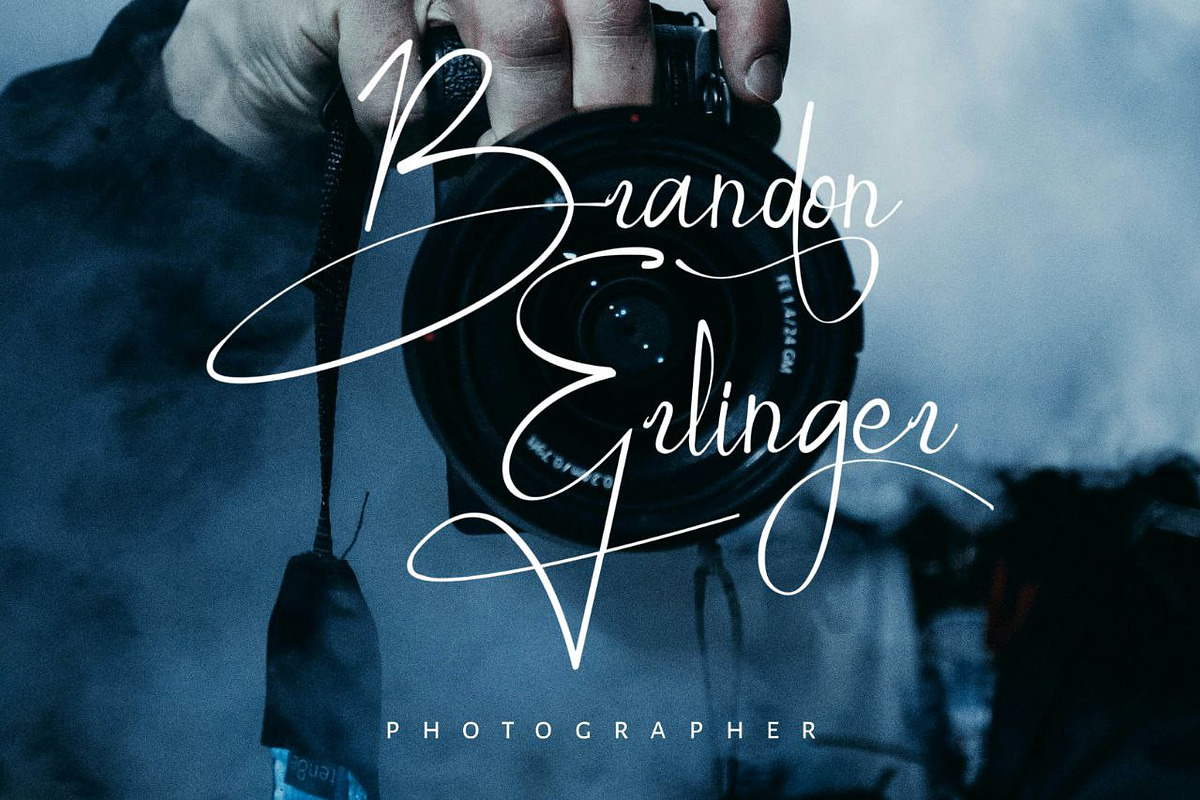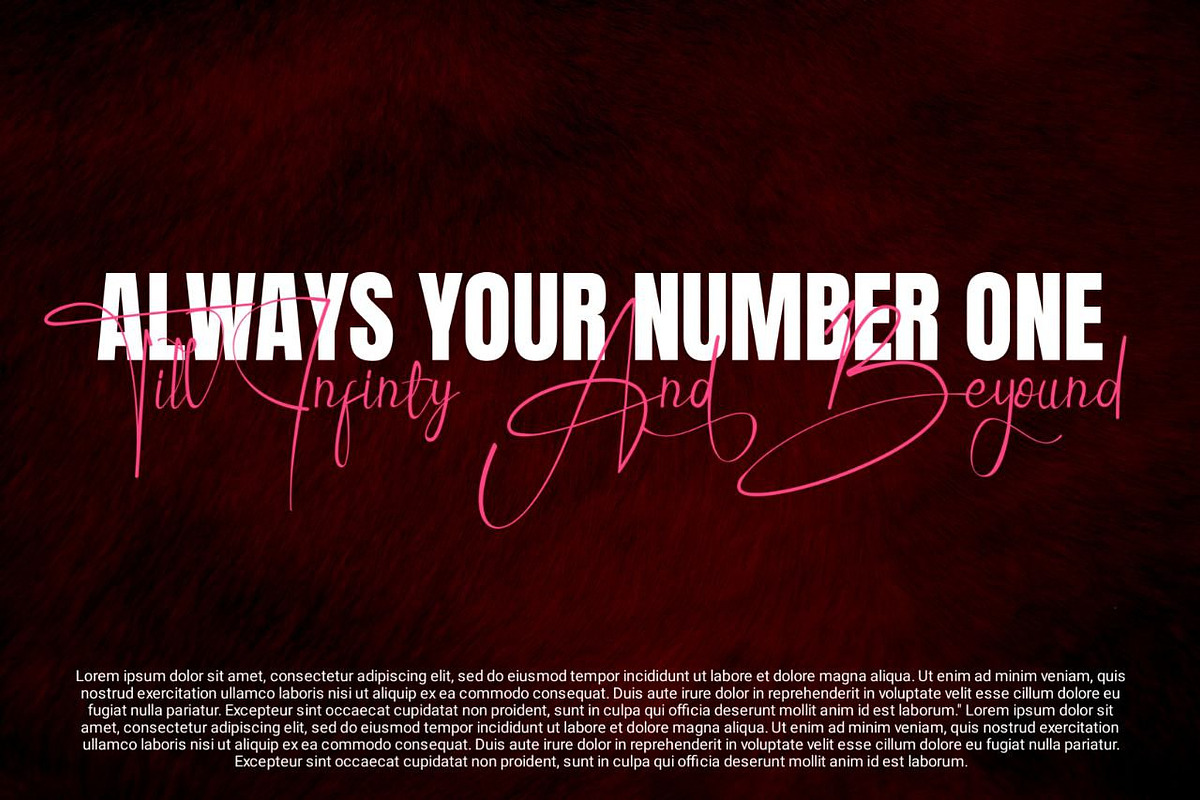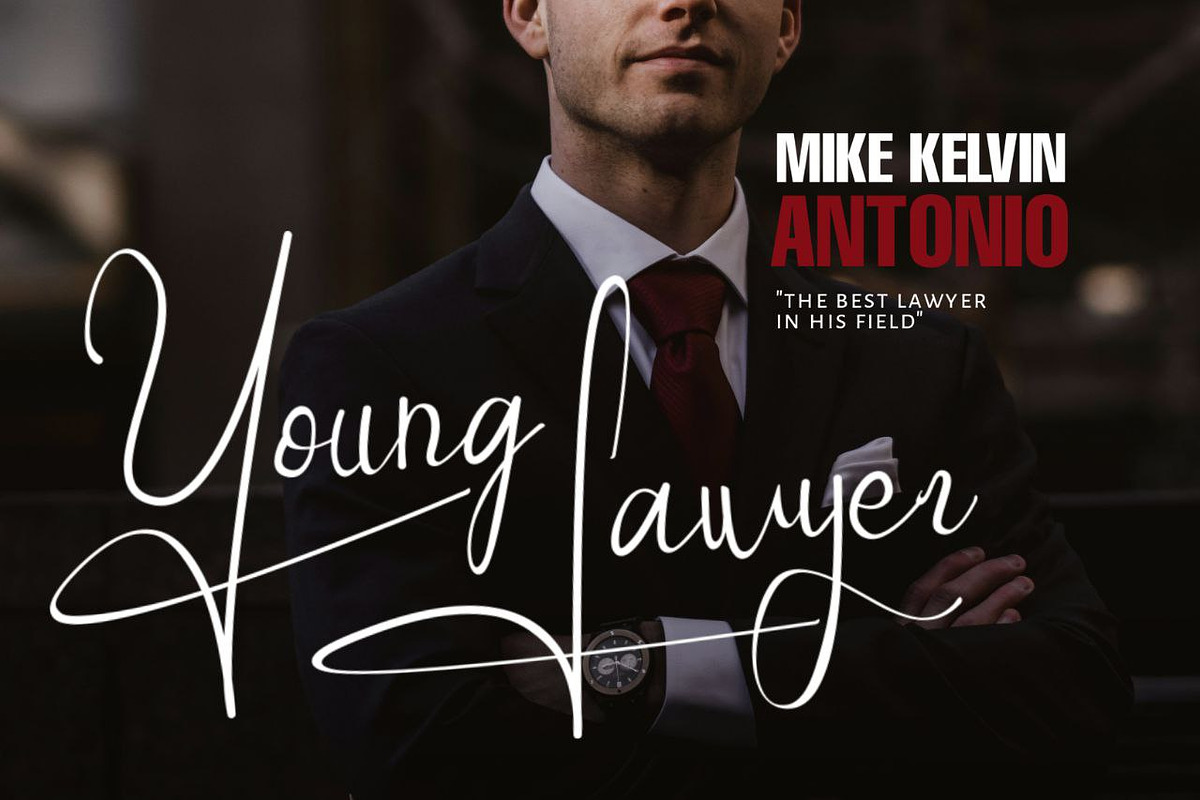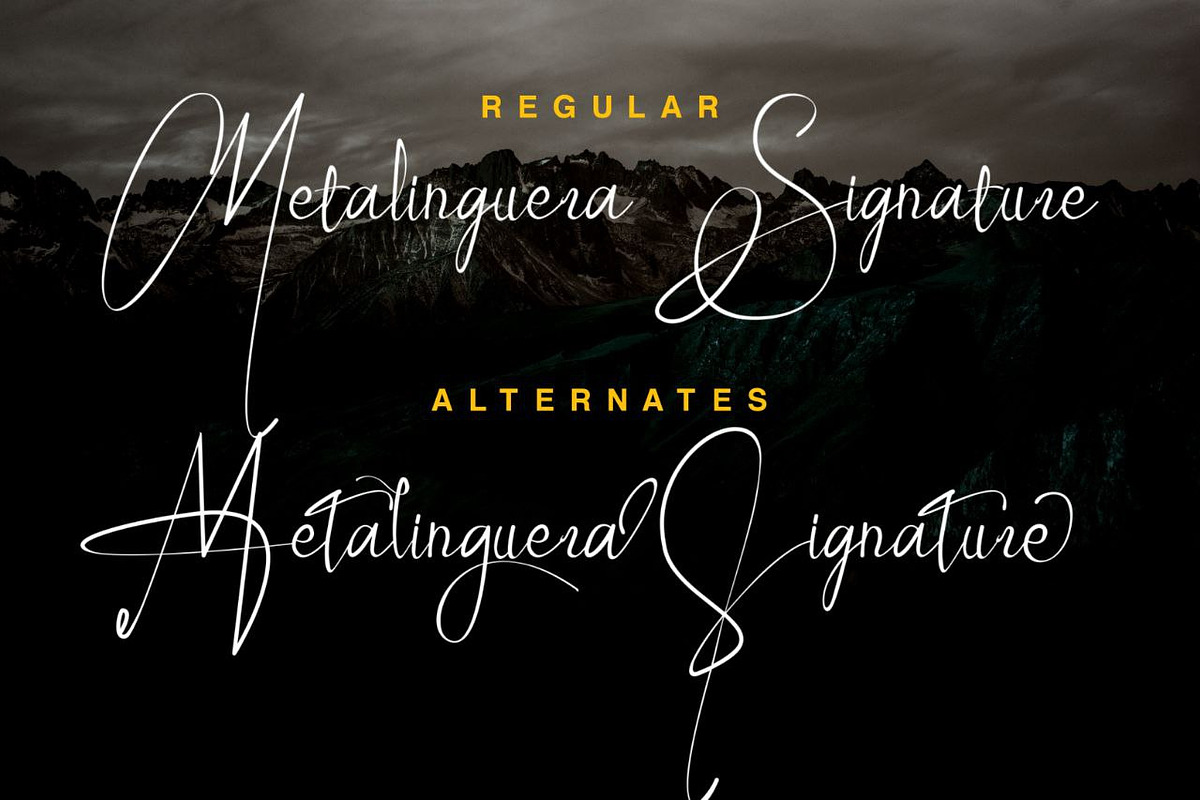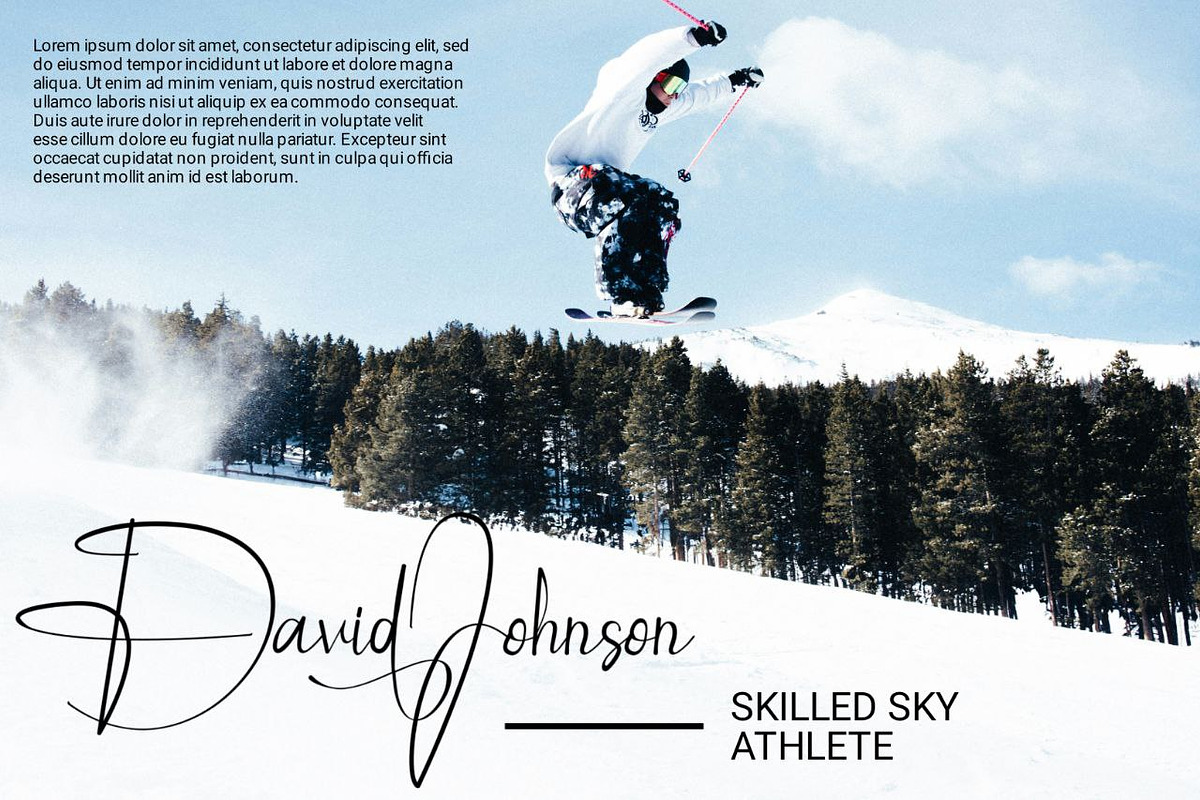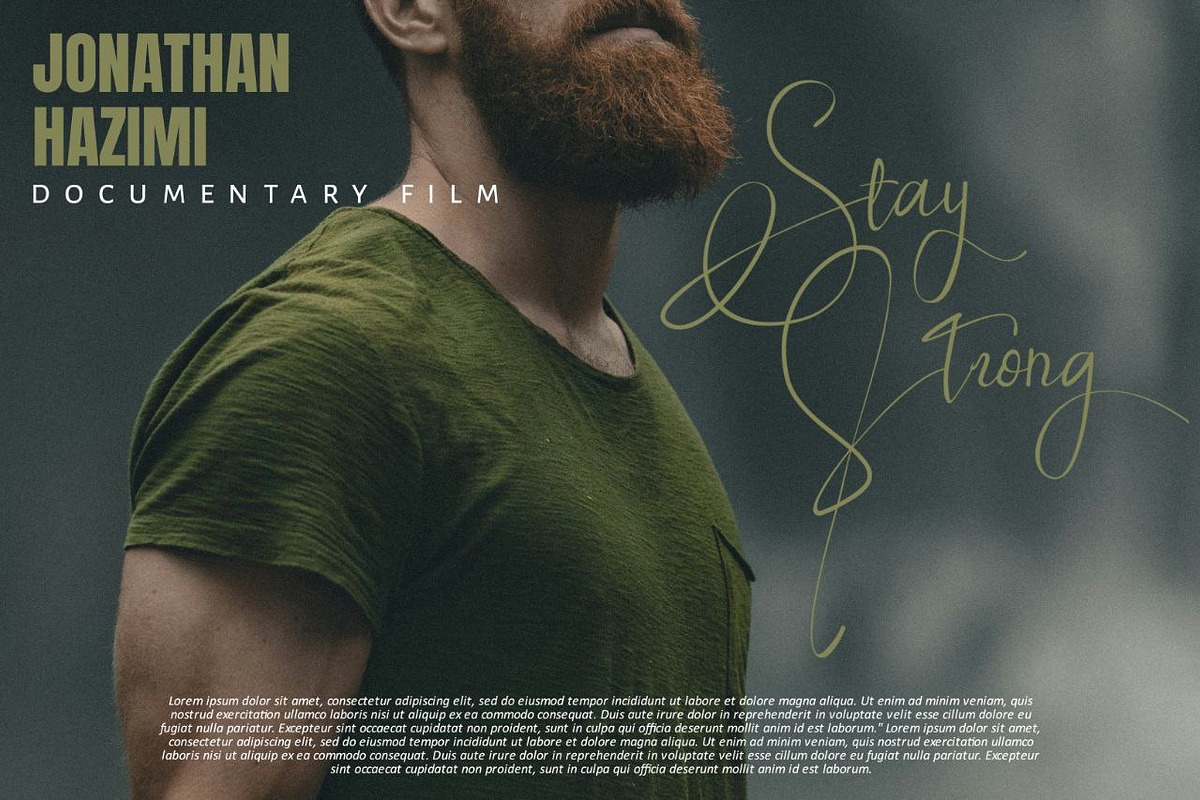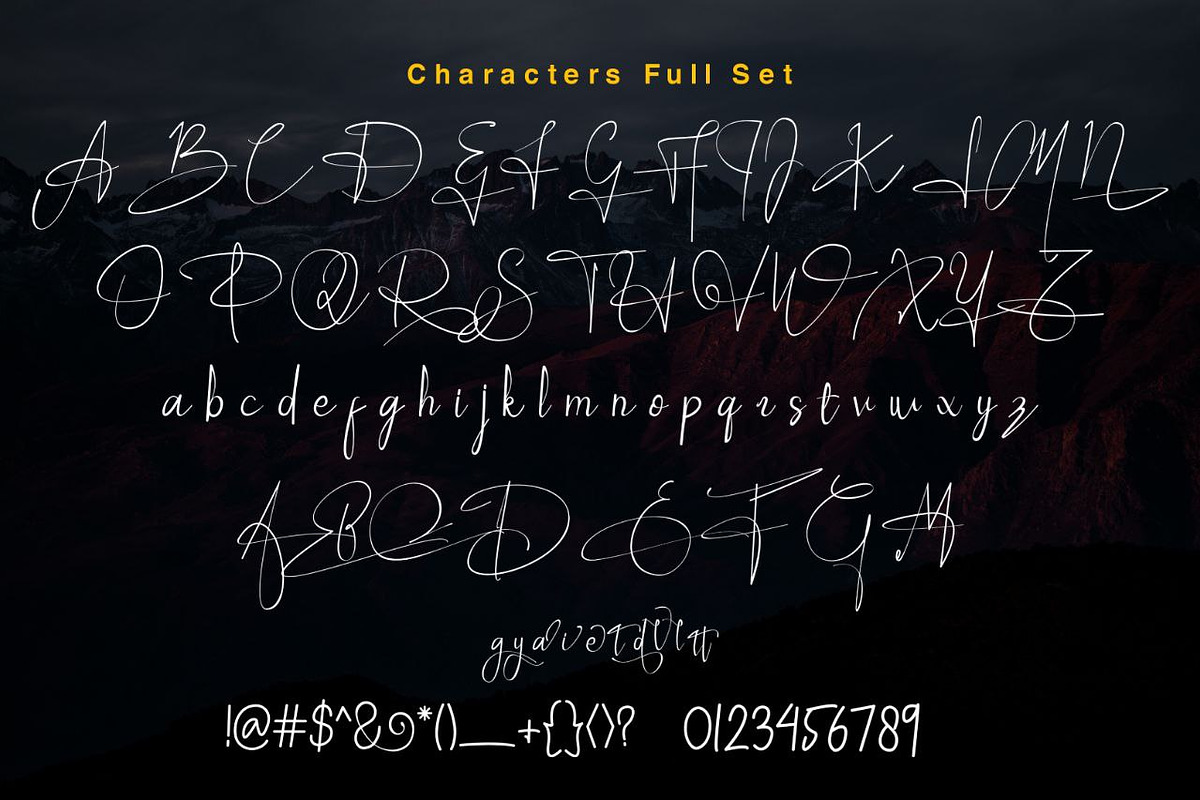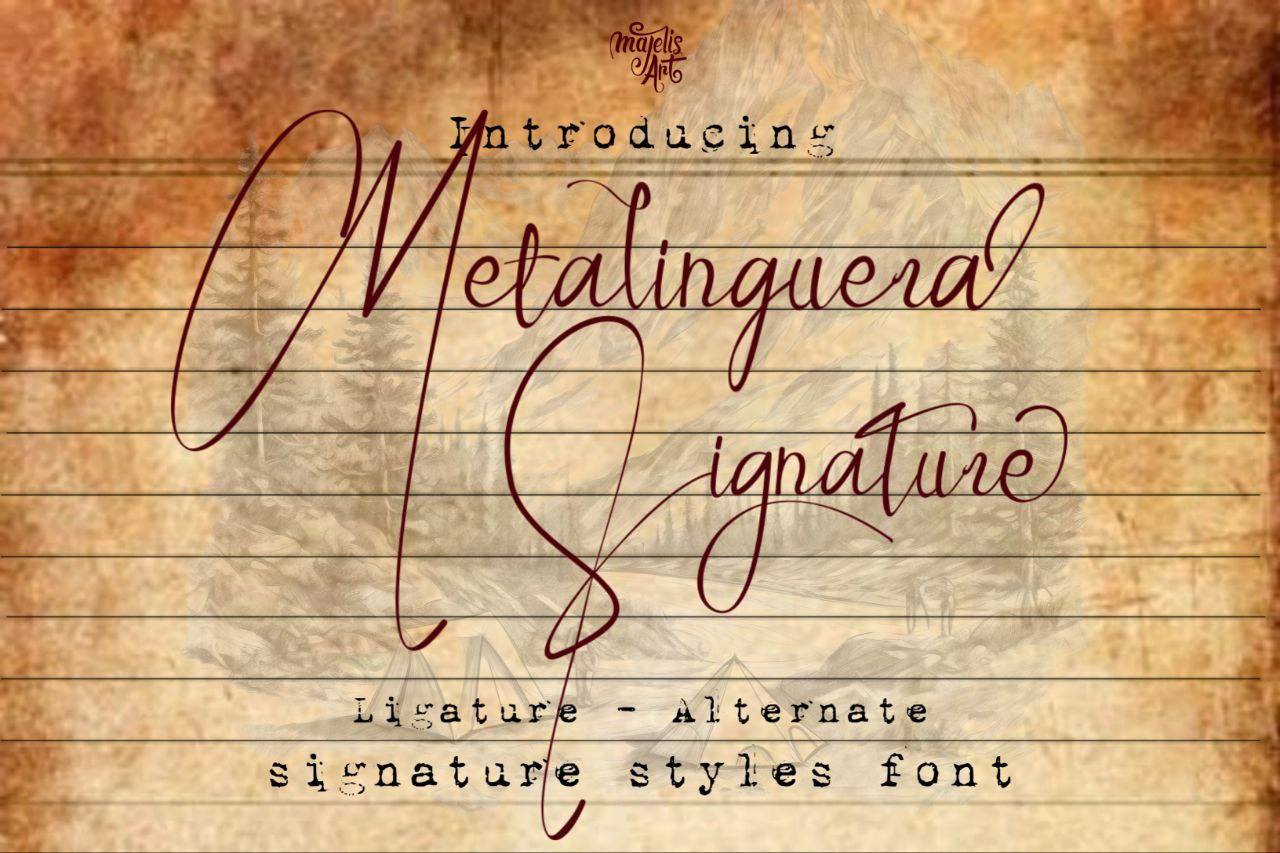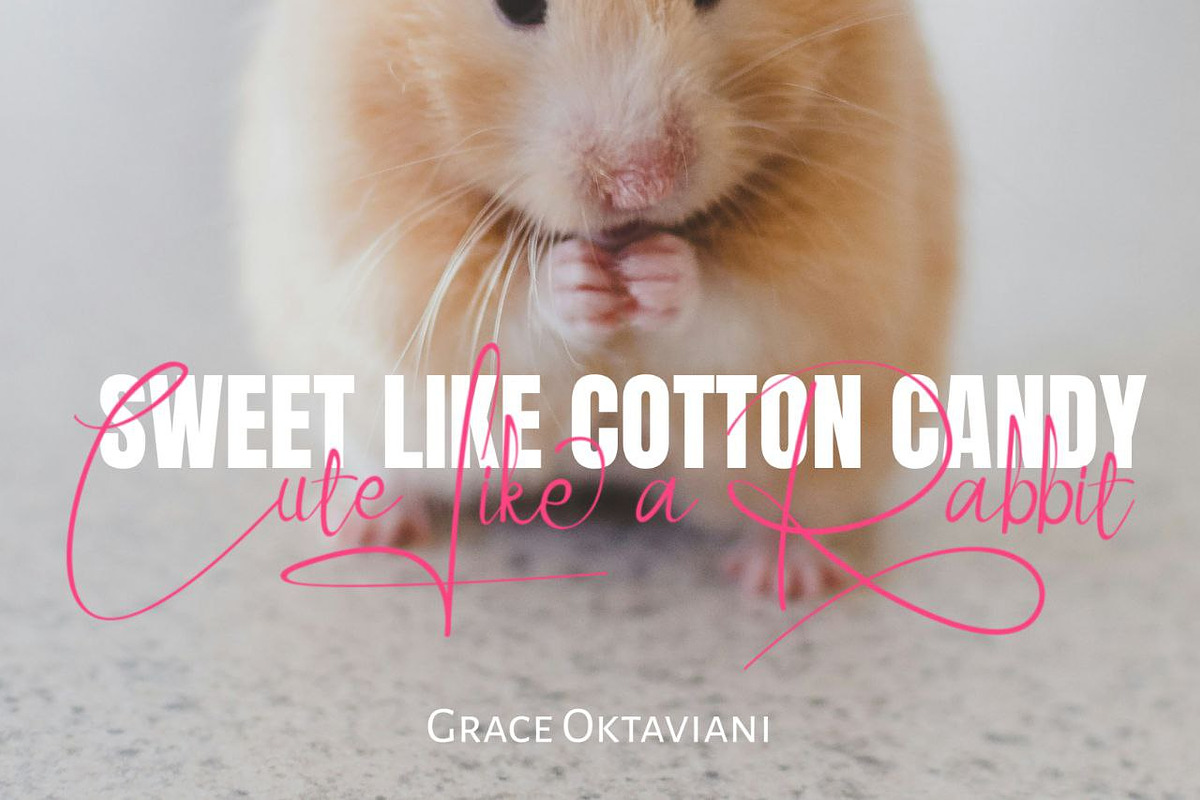
Metalinguera - Signature font
This font is a font made from a collection of signature scripts. We made it a little elegant and classy in the font field. With this, the font closely resembles a real signature or script created in the 18th century.
This font is very suitable for use on websites, films, dramas, novel and book covers, advertising posters and billboards, use on product logos, musician and band covers, and many other uses.
Available characters:
- Ligature support
- Alternate support